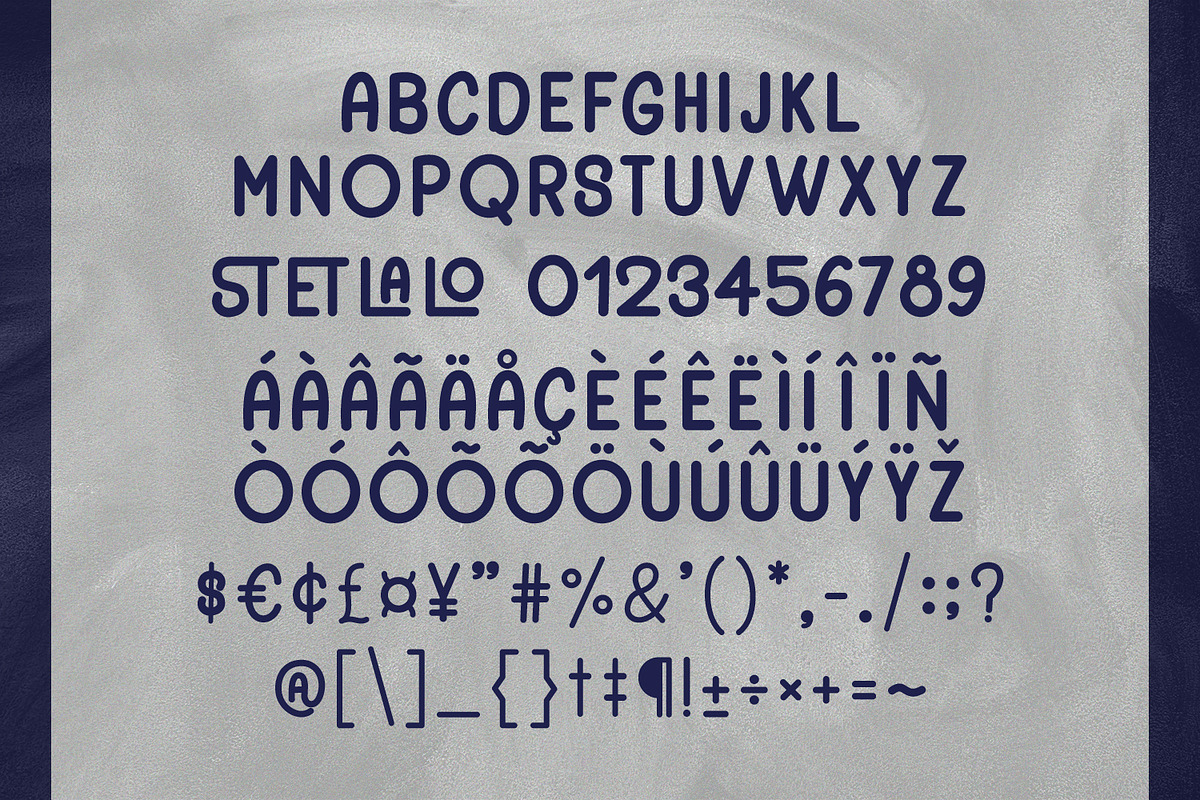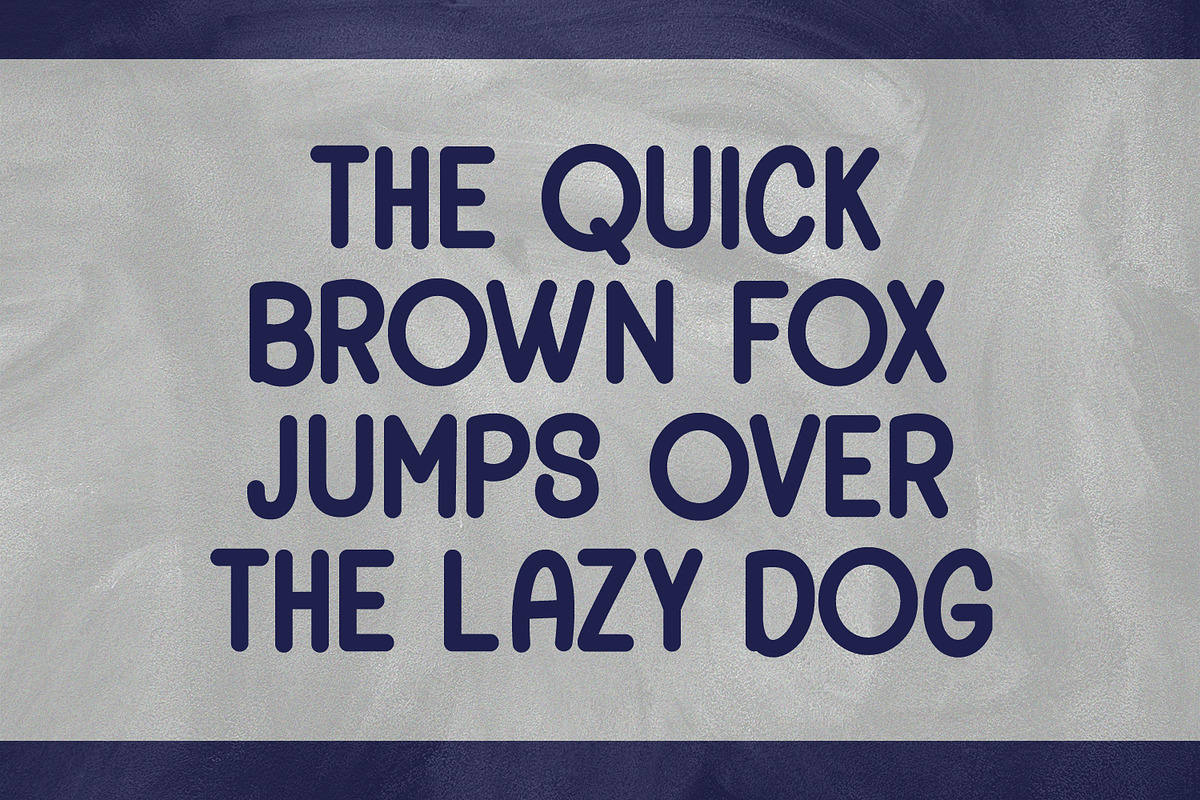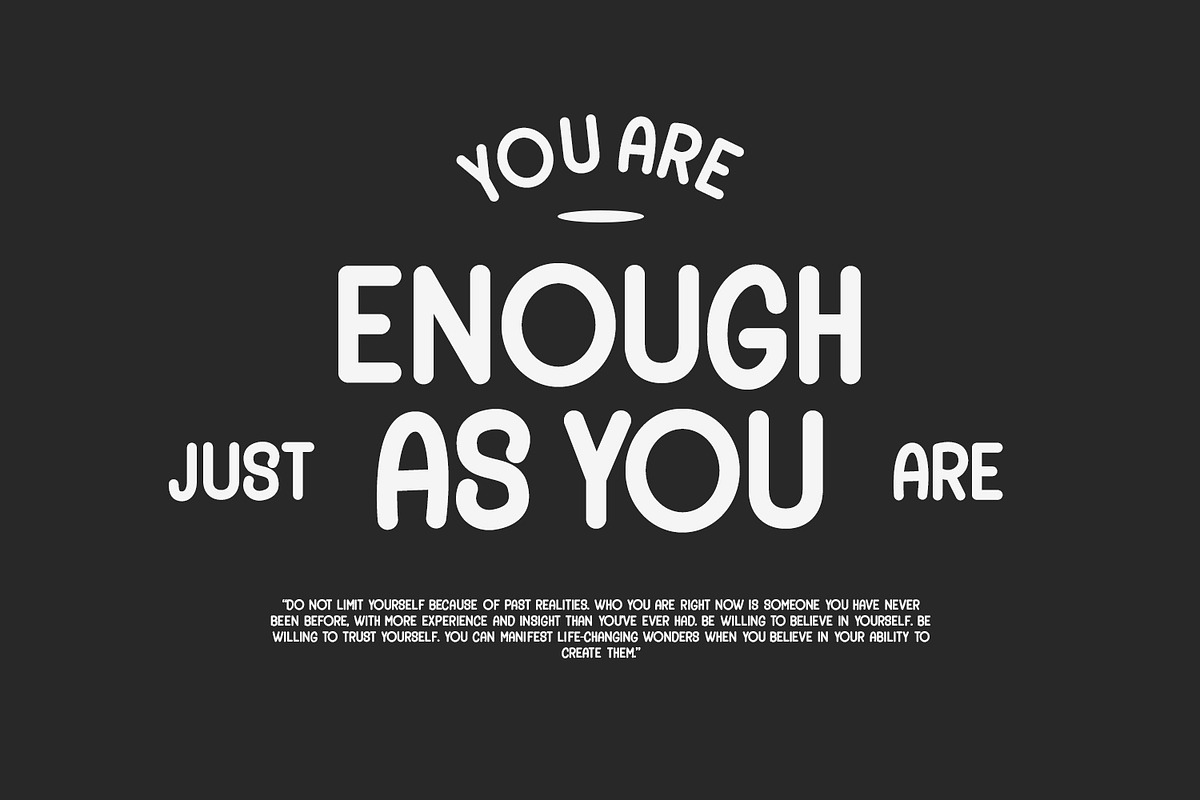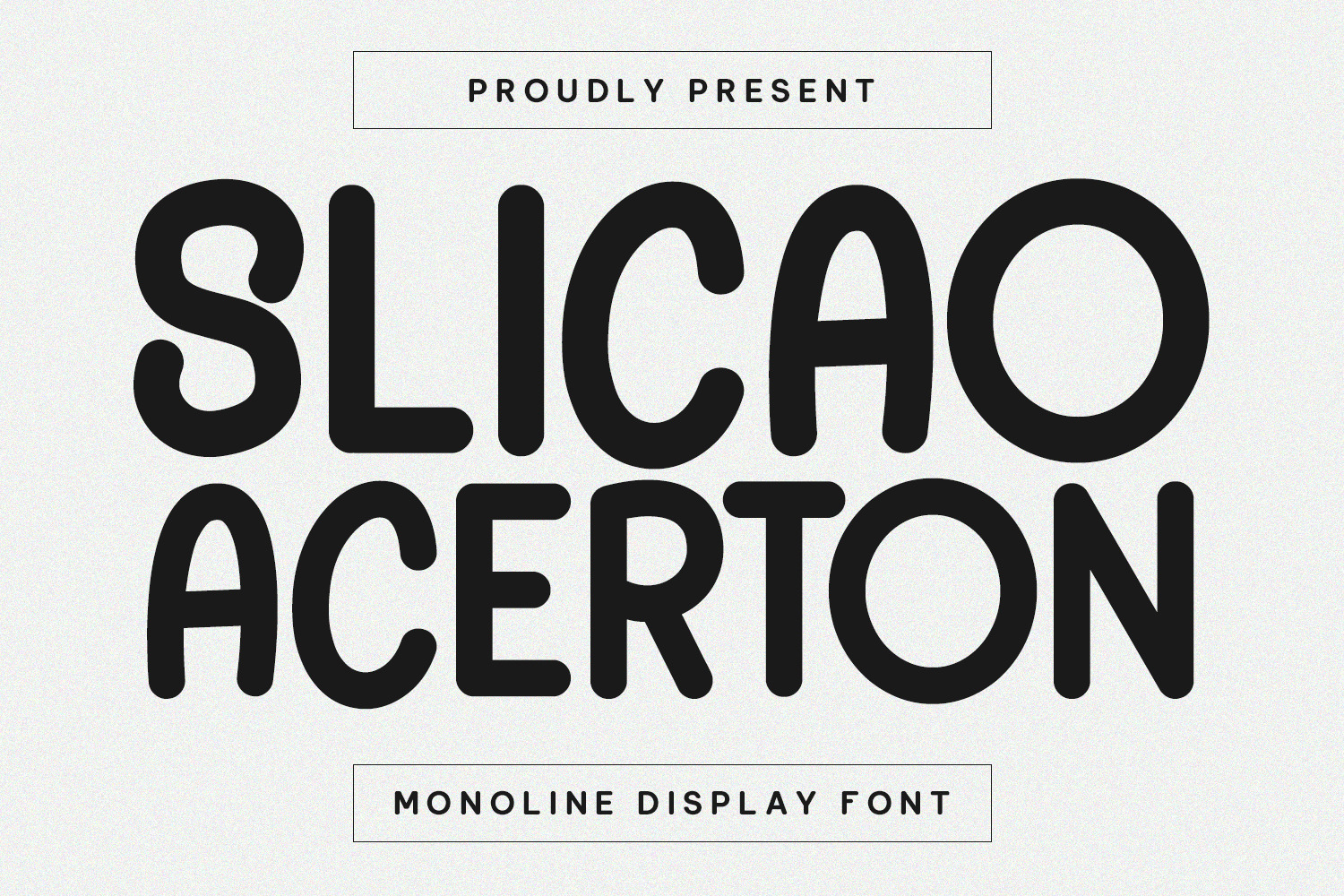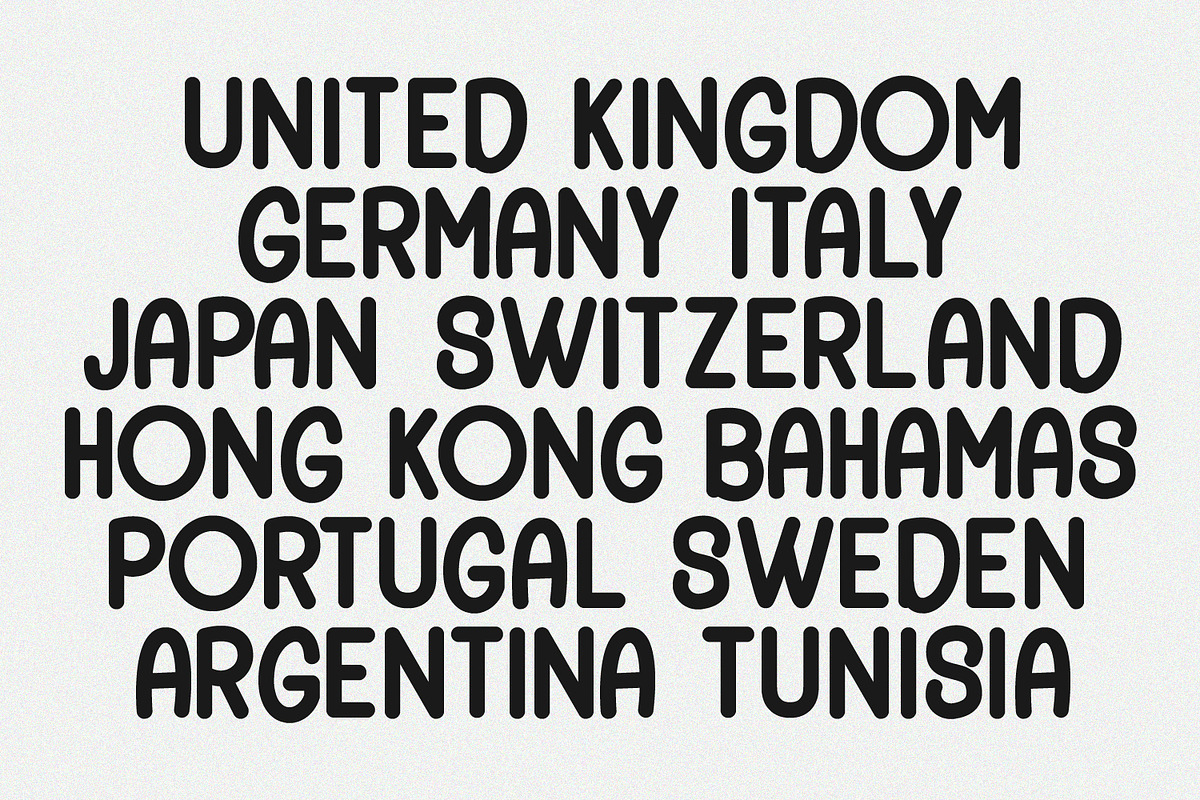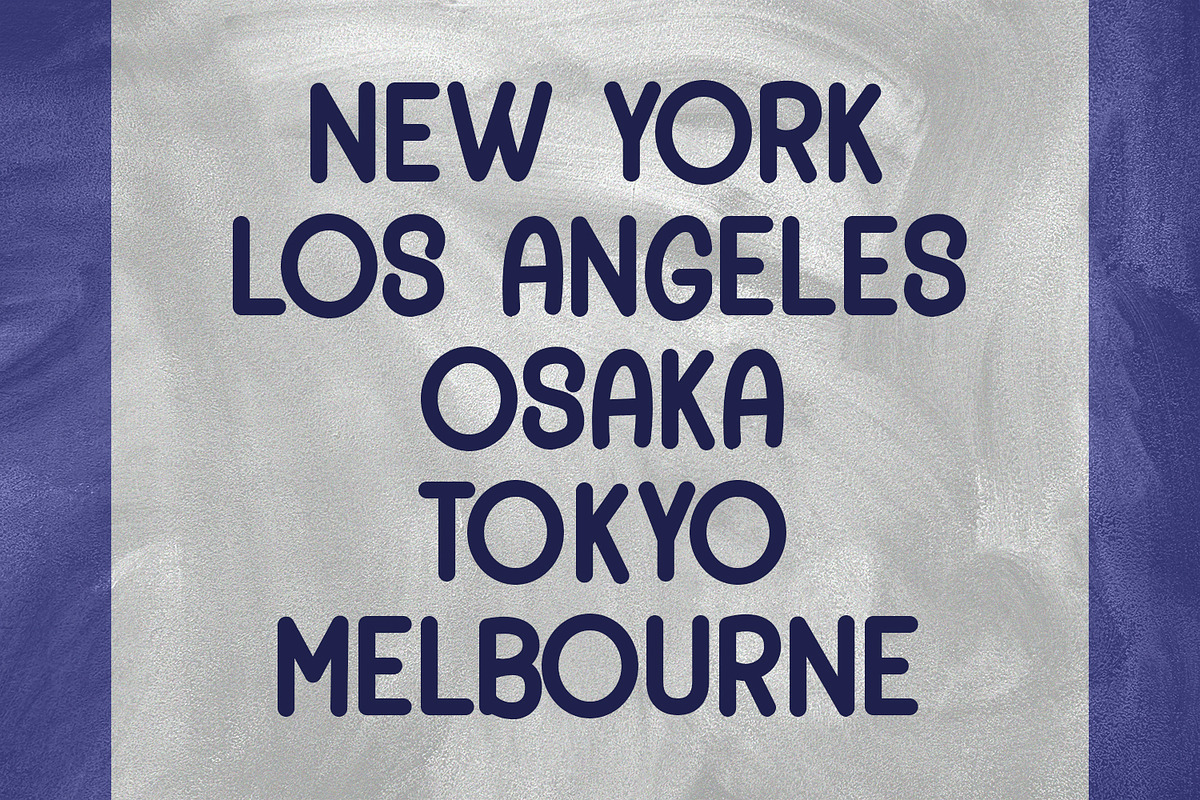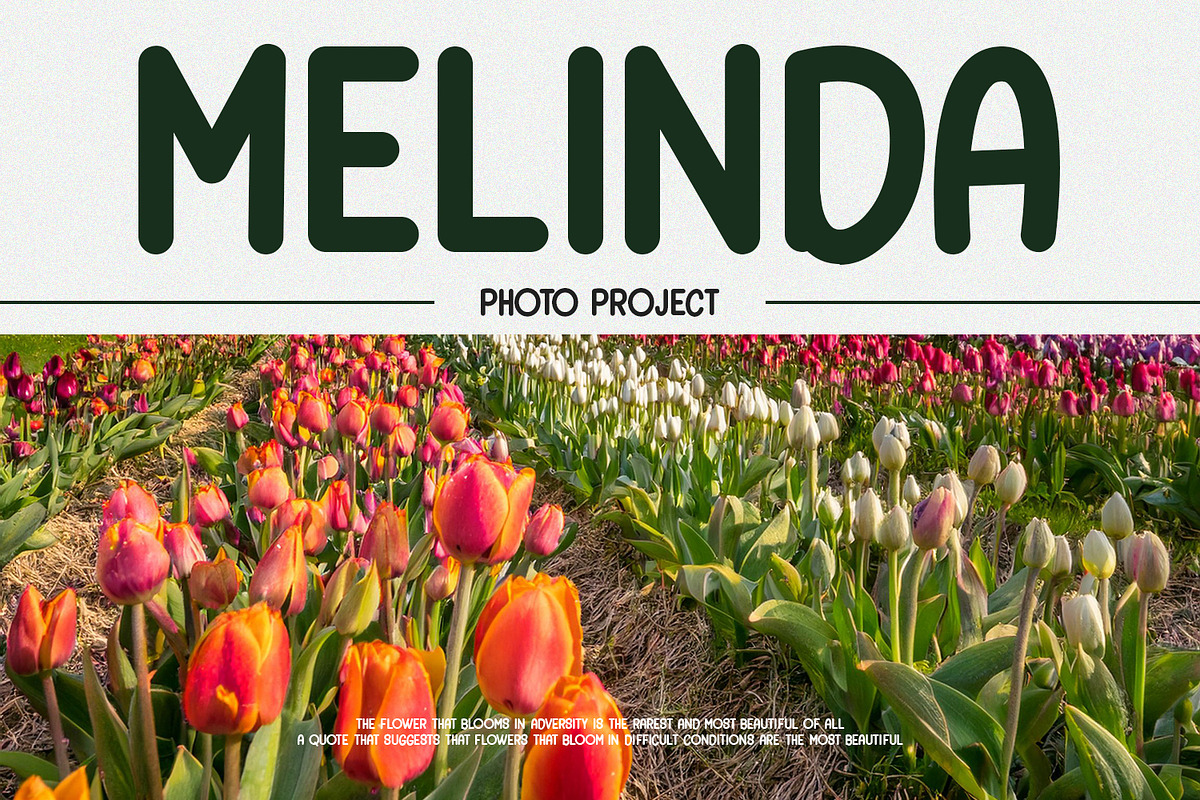
Slicao Acerton Monoline Display Font
Slicao Acerton is a monoline modern display sans font. With bold stroke, fun character with a bit of ligatures. To give you an extra creative work. Slicao Acerton font support multilingual more than 100+ language. This font is good for logo design, Social media, Movie Titles, Books Titles, a short text even a long text letter and good for your secondary text font with sans or serif. Make a stunning work with Slicao Acerton font.